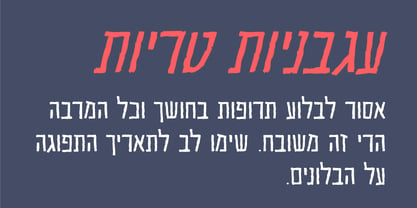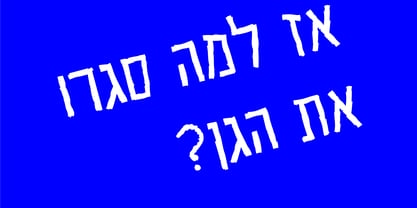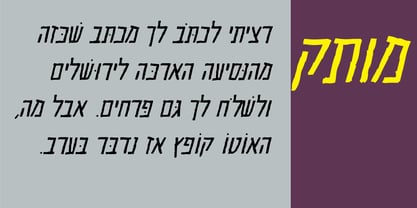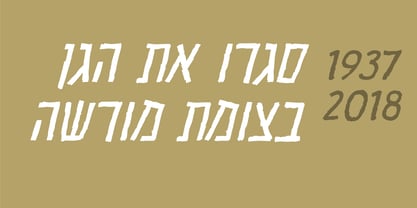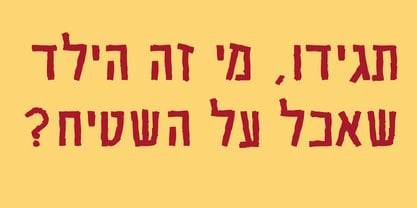
Skitsa
by Masterfont
The Skitsa Font Family was designed by Zvika Rosenberg and published by Masterfont. Skitsa contains 4 styles. More about this family
This calligraphic scribble follows the traditional Hebrew type by intensive and free hand drawn lines.
Designers: Zvika Rosenberg
Foundry: Masterfont